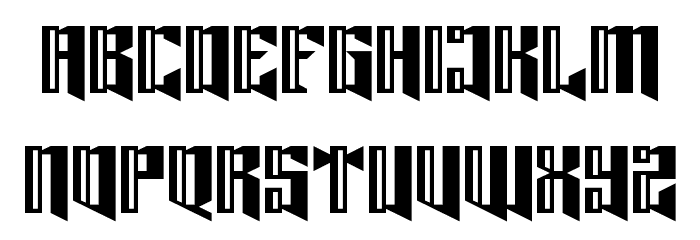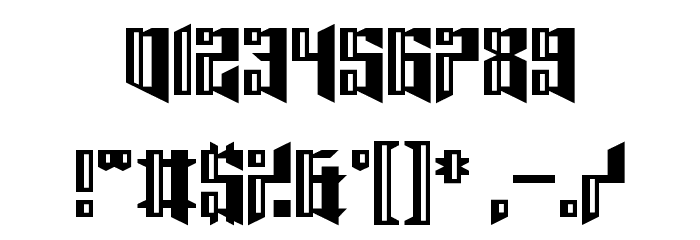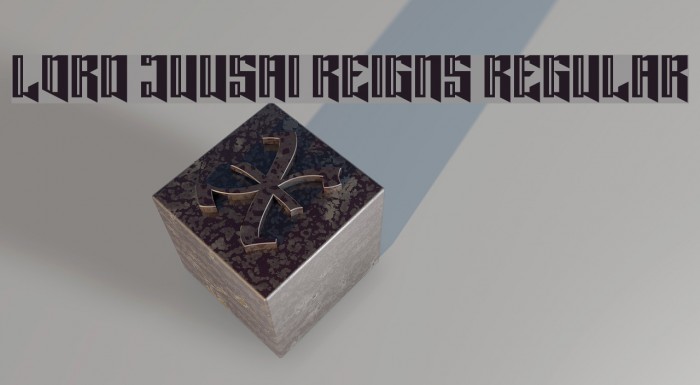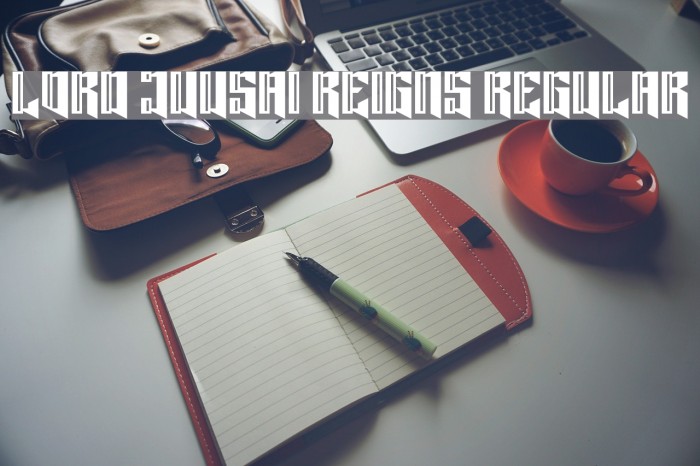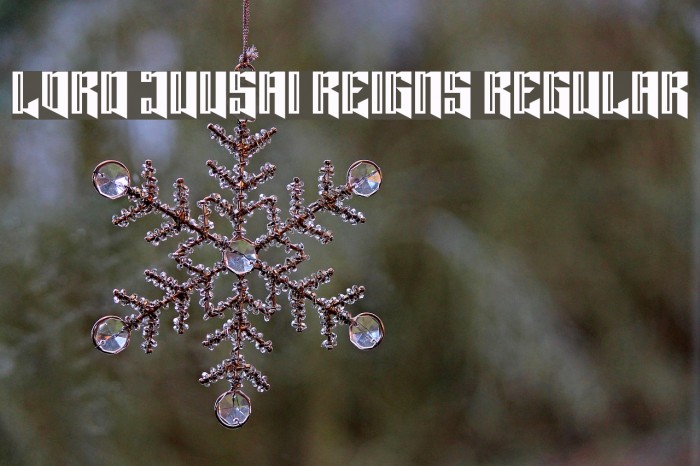
Lord Juusai Reigns Regular Font
This font features a bold, angular design with a strong geometric influence, characterized by sharp edges and a three-dimensional appearance. The uppercase and lowercase letters maintain a consistent style, with each character exhibiting a unique, blocky form that suggests a sense of strength and modernity. The numbers and special characters are designed to match the boldness and angularity of the alphabet, ensuring a cohesive look across all elements. The font's distinct style makes it highly suitable for projects that require a striking and memorable visual impact.
A bold, angular font with a geometric, three-dimensional style.
- Proposed Projects: Ideal for use in branding, posters, video game titles, and any design requiring a bold, modern aesthetic.